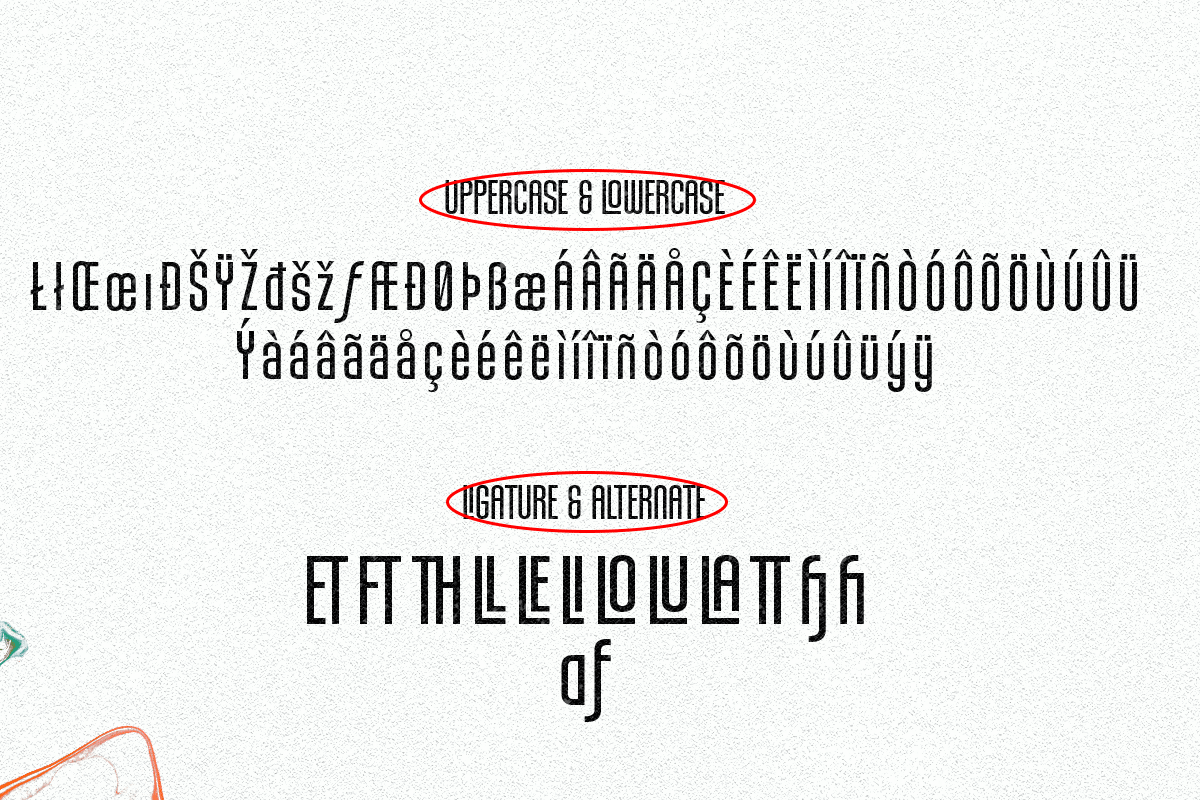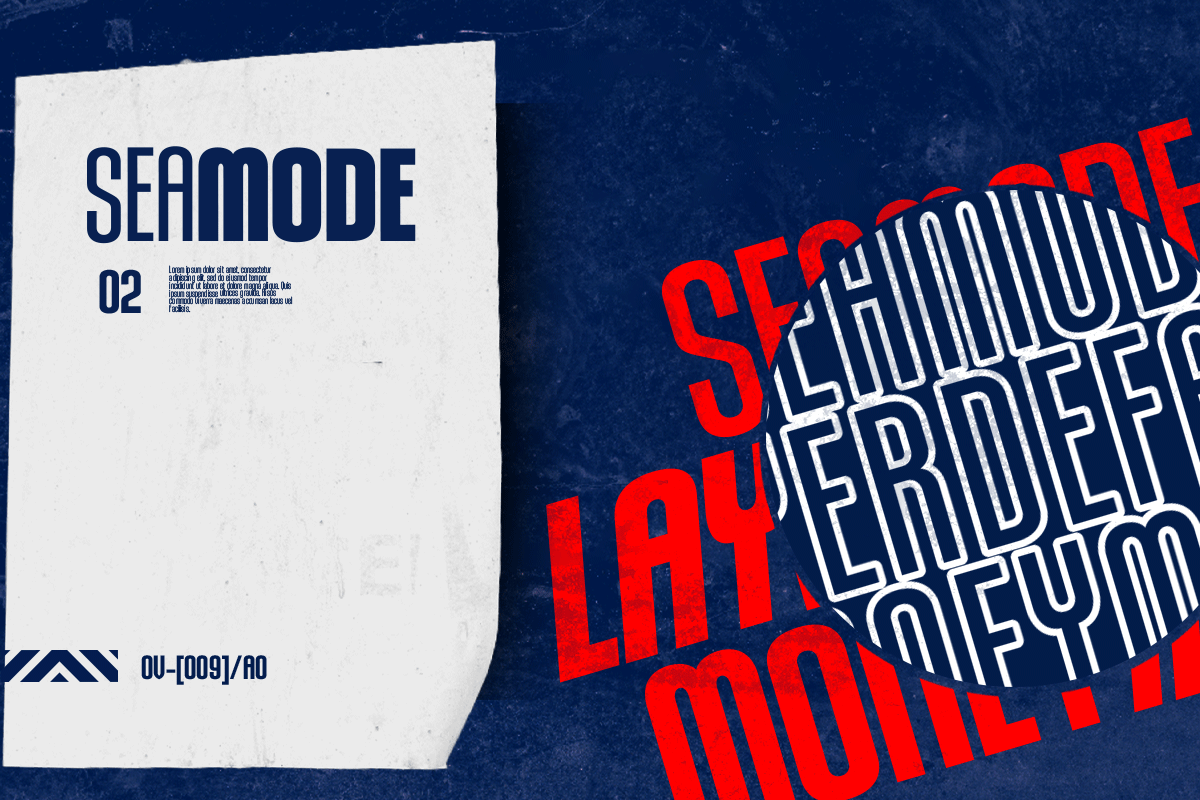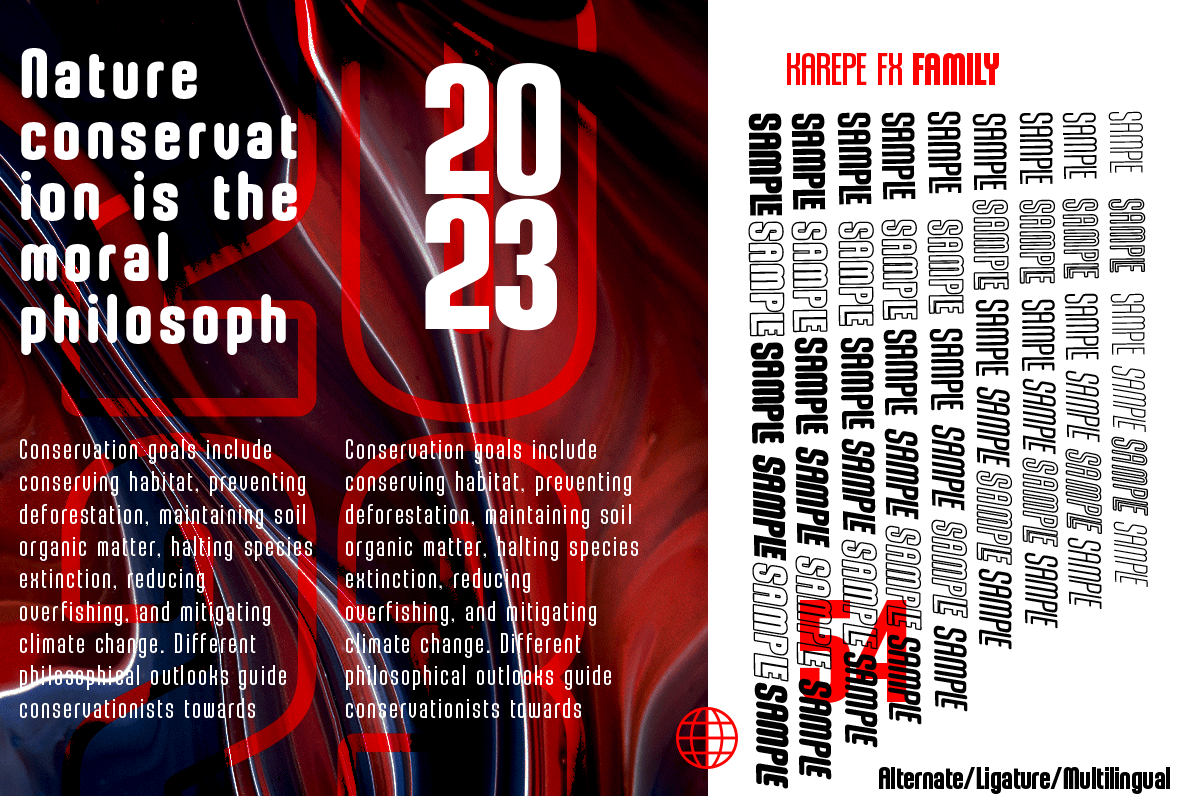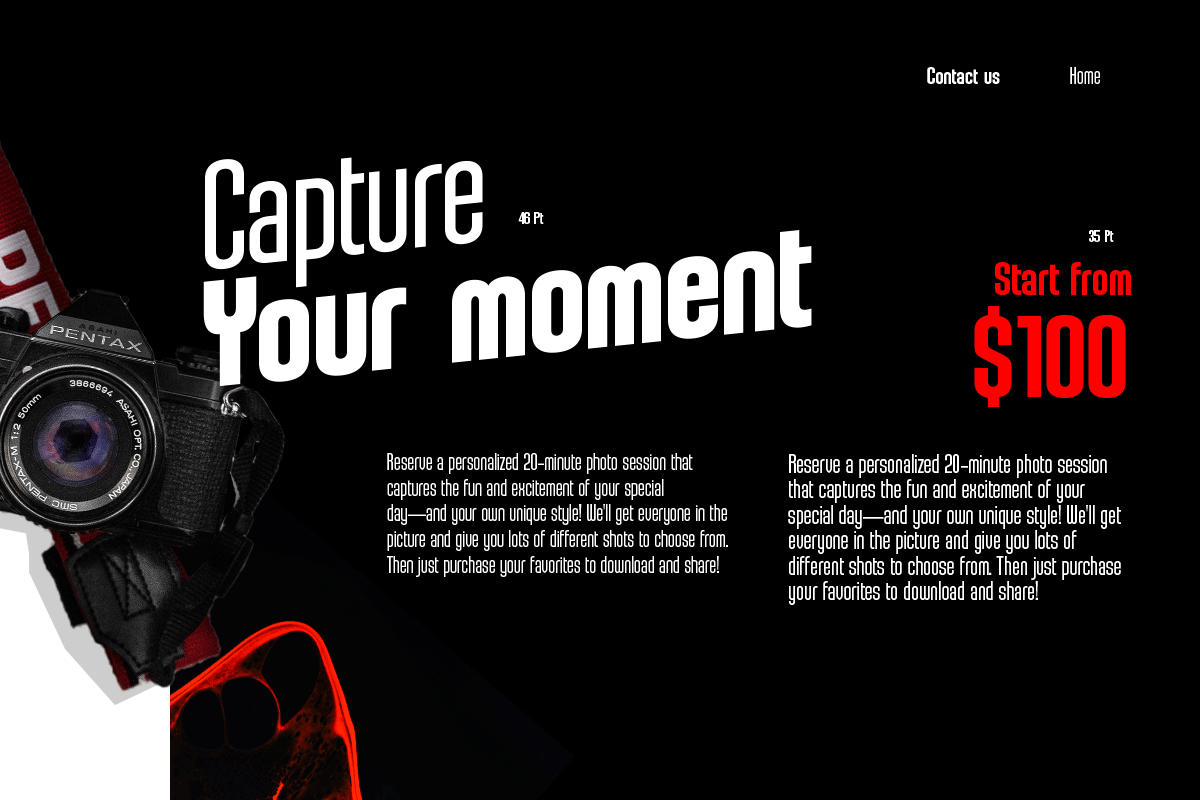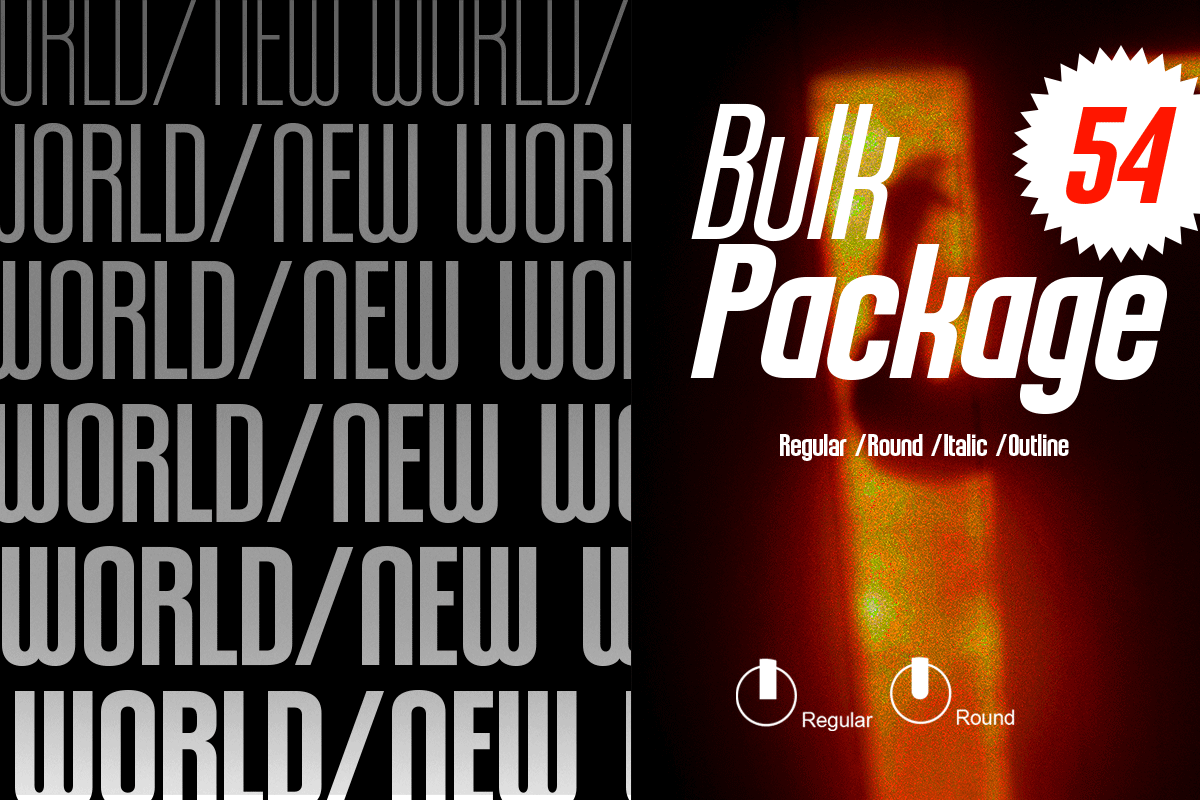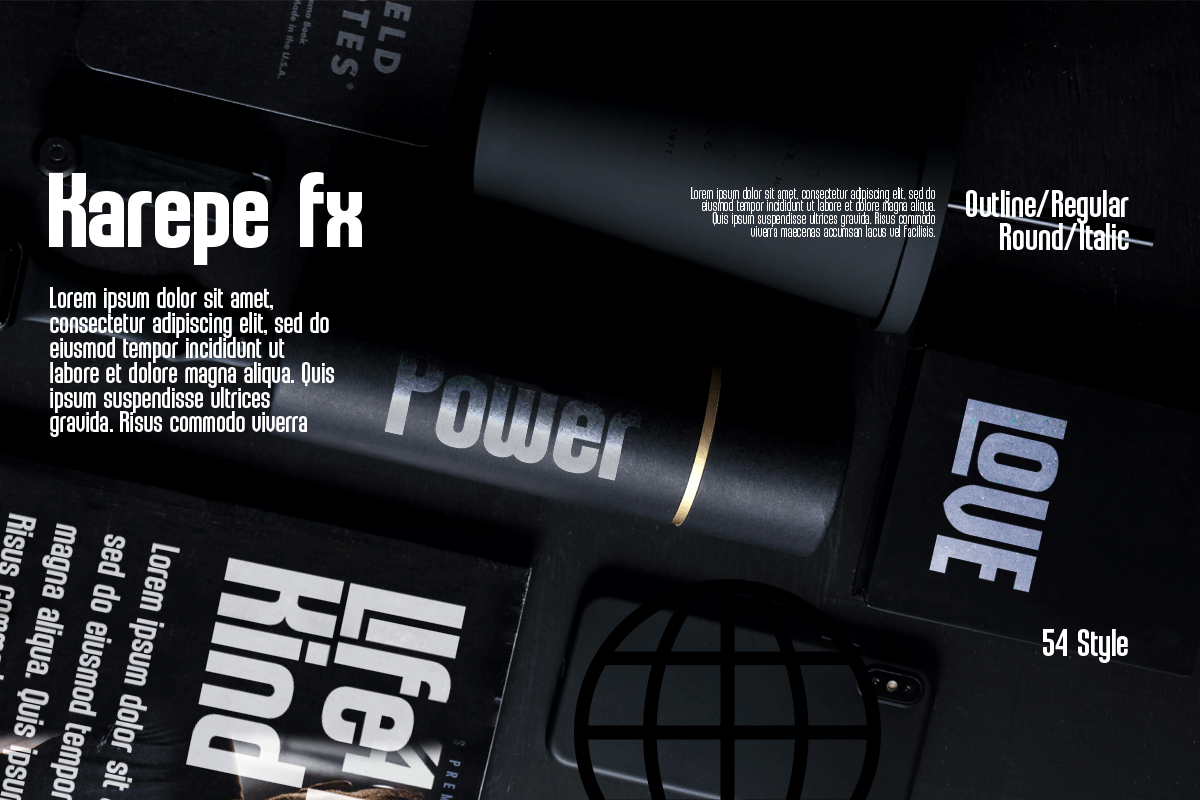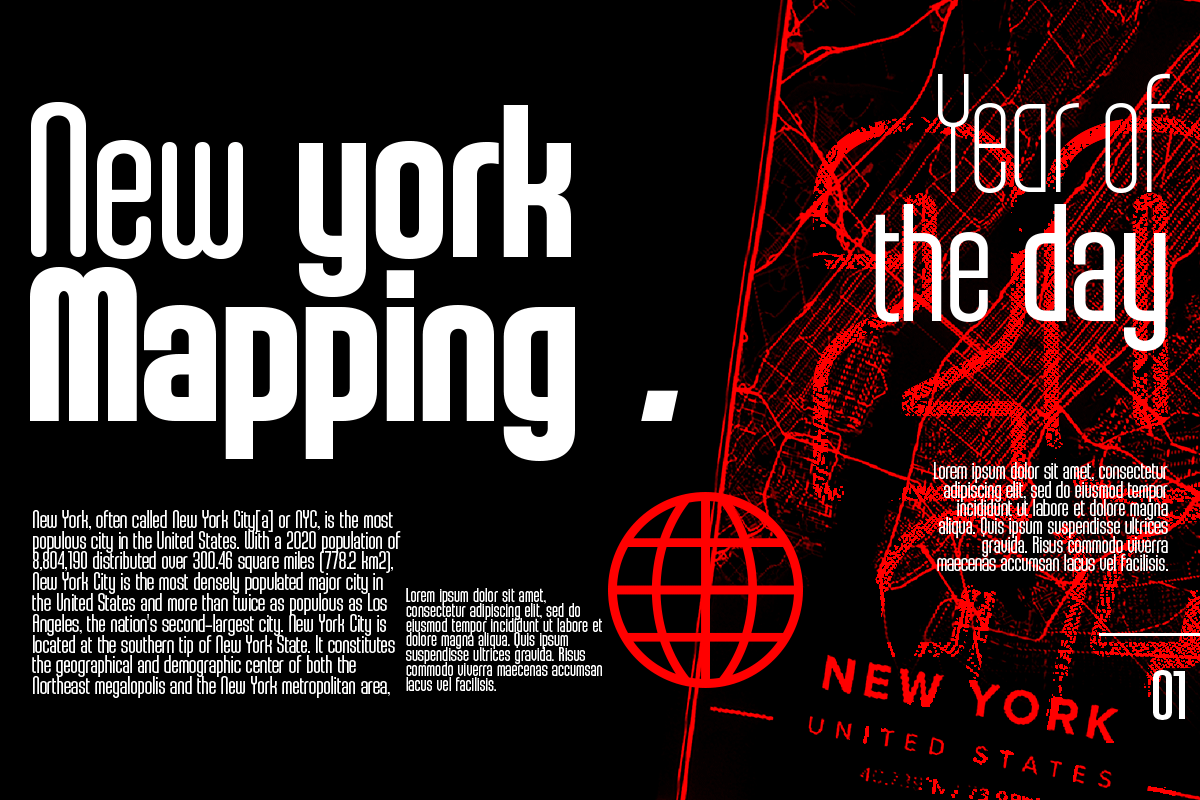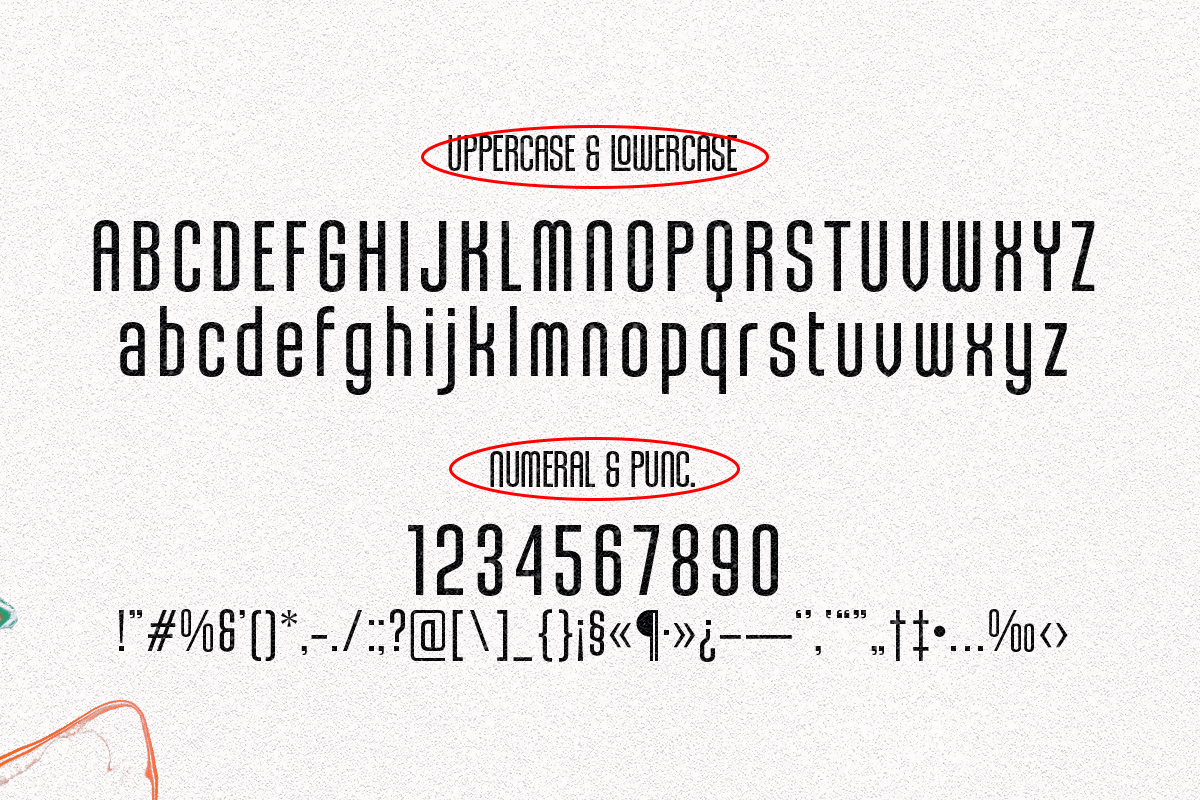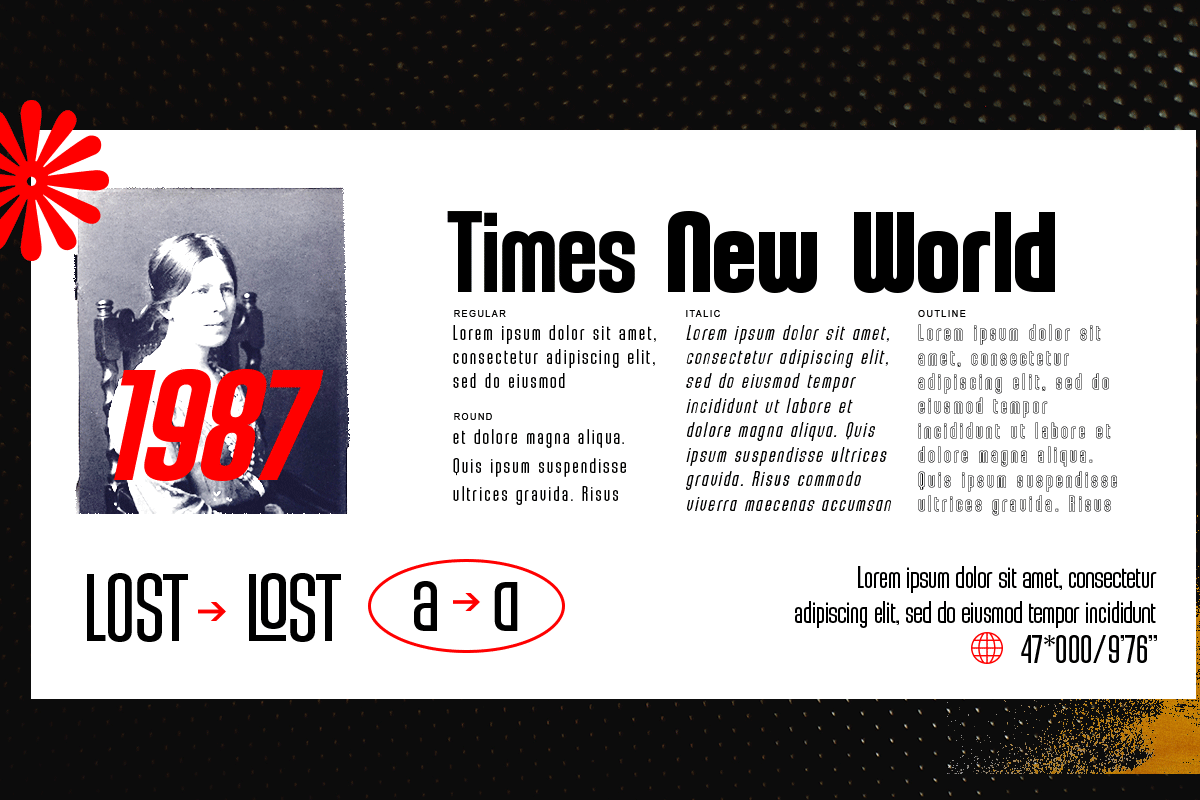
Karepe FX
Karepe FX is a modern sans family, which comes in a variety of styles. Includes 54 styles with regular, rounded, and outline options. They all work perfectly with each other. It can easily fit into any project, so add it to your creative ideas and see how it can make it stand out!